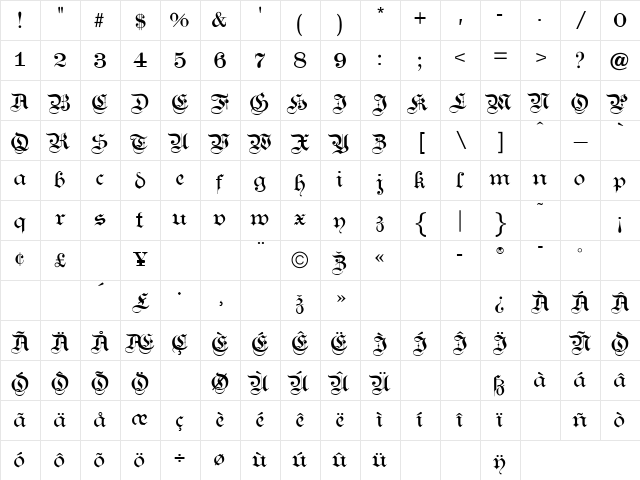
KanzleiLight Regular
Foundry: Digitized by Dan X. Solo. Software by Dover Publications, Inc
Design Context for KanzleiLight
KanzleiLight is a composed and adaptable typeface that performs quietly and consistently across a wide range of design contexts. Its slender proportions lend an understated elegance to any composition.
Who designed the KanzleiLight Regular font?